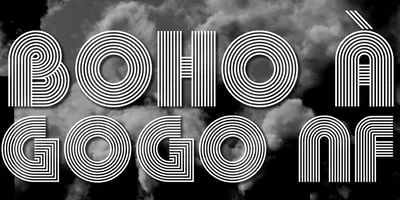
Boho A Gogo NF Font
Boho A Gogo NF Font is excellent for bohemian fashion brands, vintage poster designs, music festival graphics, hippie-inspired artwork, retro advertising campaigns, indie magazine layouts, creative studio branding, artistic event promotions, handmade craft packaging, and free-spirited lifestyle marketing.
What makes Boho A Gogo NF Font exciting is its authentic 1960s psychedelic aesthetic that perfectly captures the free-spirited, artistic essence of bohemian culture and counterculture movements. This typeface features distinctive letterforms with organic curves and decorative elements that evoke the creative rebellion and artistic freedom of the flower power era. The font's groovy personality and vintage charm make it perfect for brands seeking to connect with alternative lifestyles, artistic communities, and nostalgic bohemian values.
Boho A Gogo NF Font family includes stylistic alternatives and decorative elements that enhance its retro appeal while maintaining design coherence. The font features unique character variations, ornamental details, and special glyphs that provide creative flexibility for artistic and vintage-inspired applications.
Creative agencies and lifestyle brands consistently select Boho A Gogo NF Font for projects requiring authentic vintage character and artistic flair. The font's distinctive retro appeal excels in applications targeting creative communities, alternative lifestyles, and nostalgic markets. Whether you're designing for music venues, artistic events, or bohemian lifestyle brands, this groovy typeface delivers the authentic vintage spirit and creative freedom that resonates with audiences seeking artistic expression and unconventional beauty.